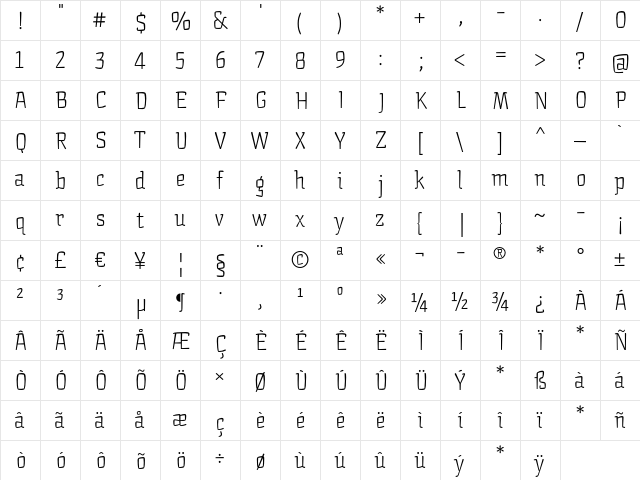
Arctic Extralight
| Foundry | Henning Skibbe |
| Designer | Henning Skibbe |
Design Context for Arctic Typeface
Arctic offers clean, dependable letterforms without strong stylistic allegiance, making it a practical choice for designers who need flexibility. Its slender proportions lend an understated elegance to any composition.